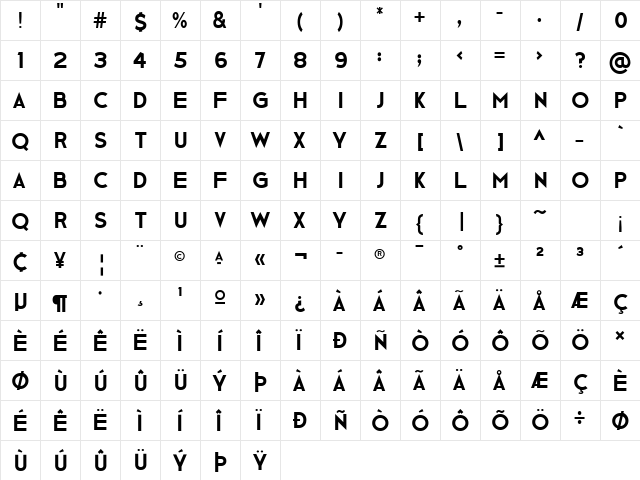
Ge Body Regular
| Foundry | LJ Design Studios |
| Designer | Luis Jaramillo |
Design Context for Ge Body Typeface
Ge Body is a composed and adaptable typeface that performs quietly and consistently across a wide range of design contexts.
Pro Tip: Use Ge Body in both headline and body roles to test its range before committing to a single application.